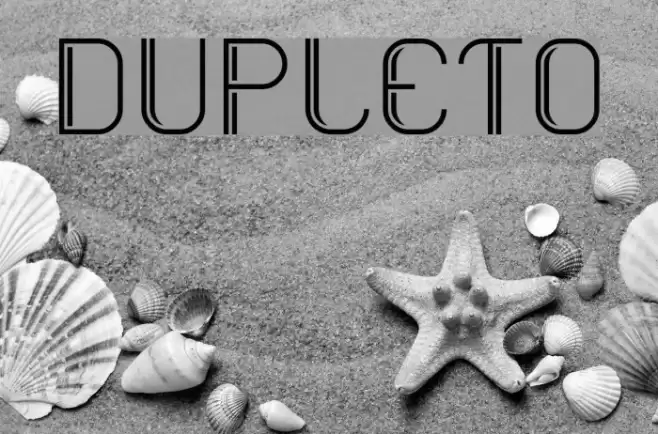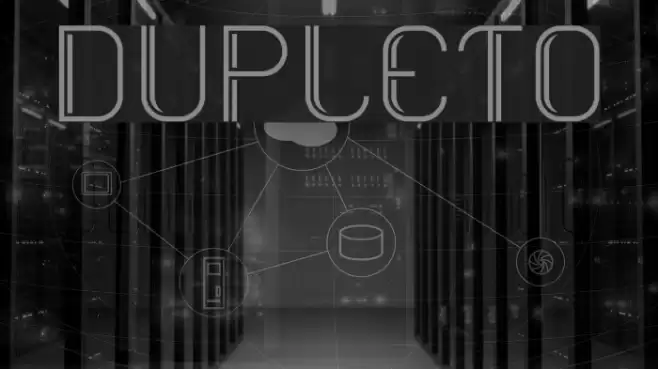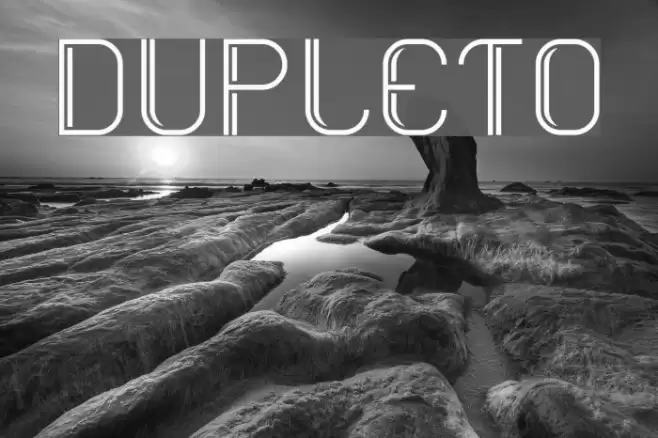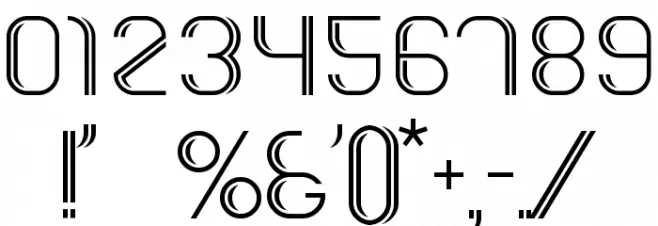
Dupleto Font
Dupleto Description
This font features a unique, modern design with a double-line structure that creates a sense of depth and dimension. The characters are constructed with parallel lines that form each letter, giving it a futuristic and geometric appearance. The uppercase and lowercase letters maintain a consistent style, with clean lines and a balanced form. The numerals and special characters follow the same design principles, ensuring uniformity across the typeface. This font's distinct style makes it suitable for creative and contemporary projects, offering a visually striking option for designers.
A modern, geometric font with a double-line structure for a futuristic look from Uncategorized fonts.
- Proposed Projects: Ideal for branding, posters, digital art, and any project requiring a modern and innovative touch.